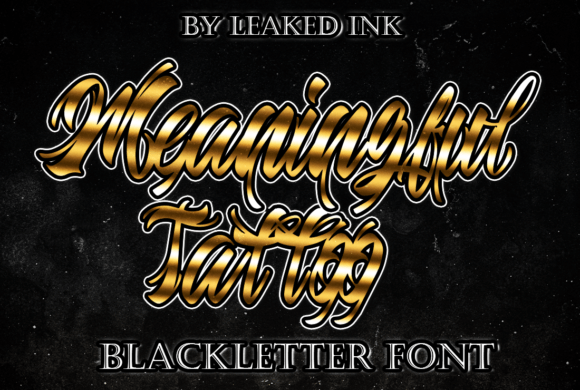
Introducing Meaningful Tattoo, the ultimate Font For Script enthusiasts! Created by the talented Leaked Ink, this blackletter font is more than just a typographic masterpiece—it's a work of art that will elevate your designs to new heights.
Meaningful Tattoo is not your ordinary font. It's a bold and striking choice that exudes power and commands attention. Inspired by the intricate art of tattooing, each letter is meticulously crafted with sharp and angular strokes, giving it an edgy and dramatic feel. This font is the perfect choice for those who want to express strength, passion, and individuality through their designs.
With Meaningful Tattoo, your words will speak volumes. Whether you're designing a logo, creating stunning posters, or crafting a personalized tattoo, this font will make a statement. Its unique style adds a touch of rebelliousness and authenticity to any project, setting you apart from the crowd.
Immerse yourself in the world of Meaningful Tattoo and unlock endless possibilities. Its versatility knows no bounds, making it suitable for a wide range of creative projects. From album covers to merchandise, from book titles to social media graphics, this font will add a touch of intrigue and elegance to your work.
But it's not just about aesthetics—Meaningful Tattoo is also designed with functionality in mind. Its clear and legible letters ensure that your message is conveyed with clarity and impact. No matter the size or format, this font remains sharp and crisp, guaranteeing a seamless reading experience for your audience.
Embrace the power of Meaningful Tattoo and let your creativity run wild. This font is your ultimate tool for self-expression and storytelling. Each letter carries a unique emotional weight, allowing you to evoke a wide range of feelings and emotions in your audience. From love and passion to defiance and rebellion, Meaningful Tattoo has the power to captivate and inspire.